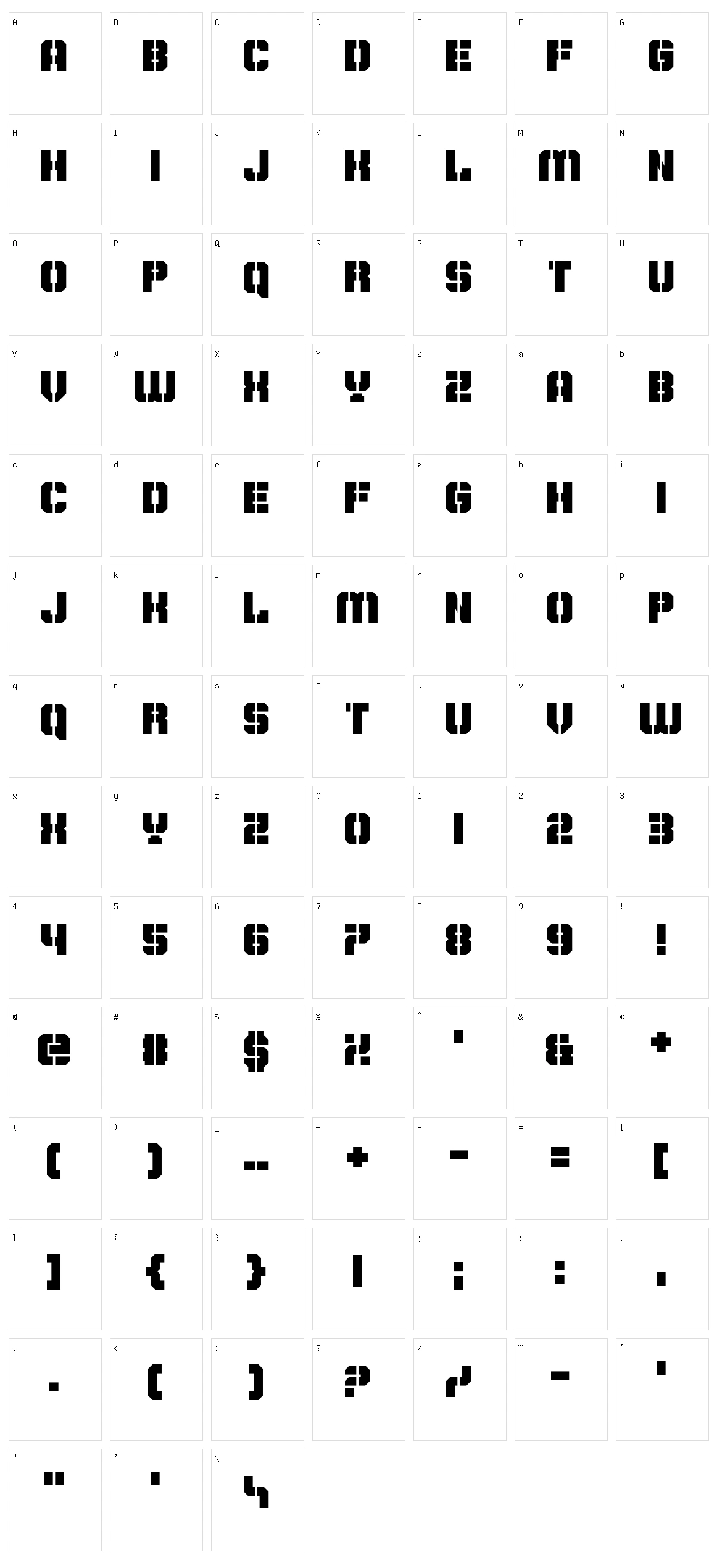
The free font Don't Delay Act Now! is carefully designed by Chequered Ink, showcasing a thoughtful balance of creativity and usability and falls under the Stencil font style. When you download the ZIP file, it contains only 11.04 KB of font files, making it lightweight and quick to download. Please review the license details below to understand permitted usage and distribution rights. If license information is not available, we recommend using this font for personal projects only or contacting the author directly for commercial usage permissions.